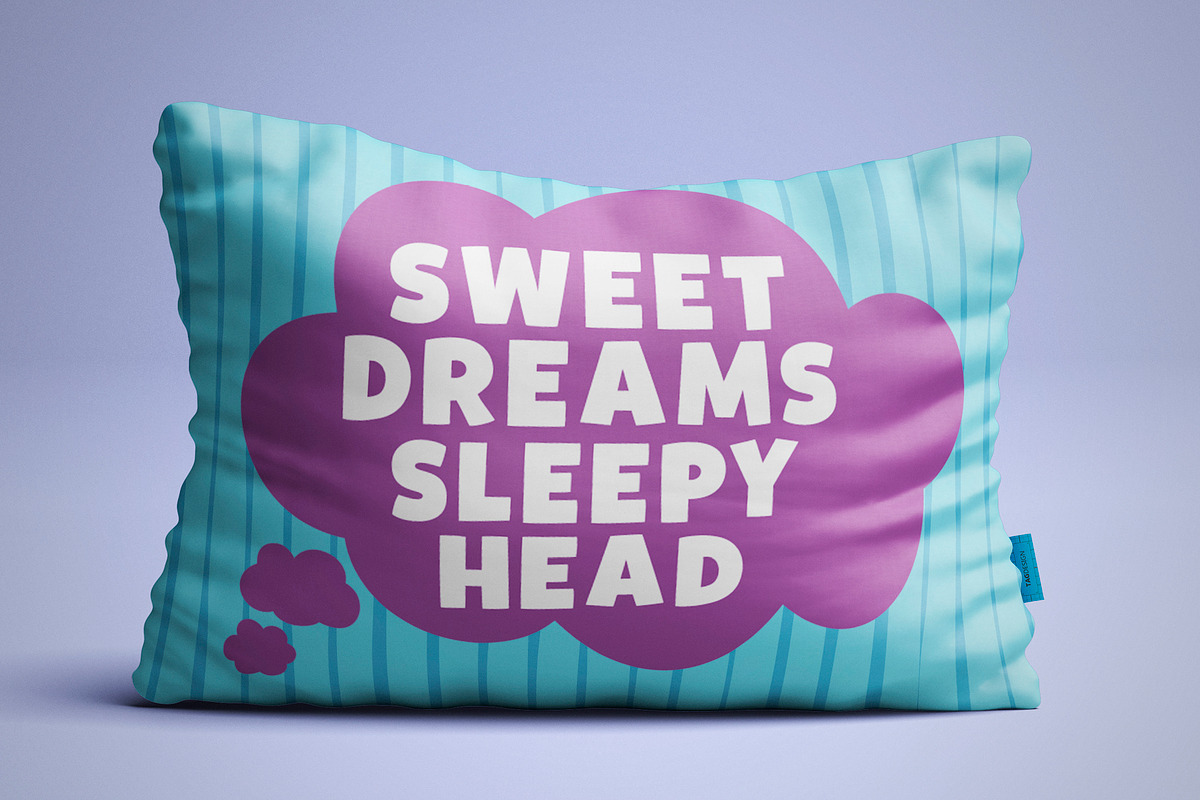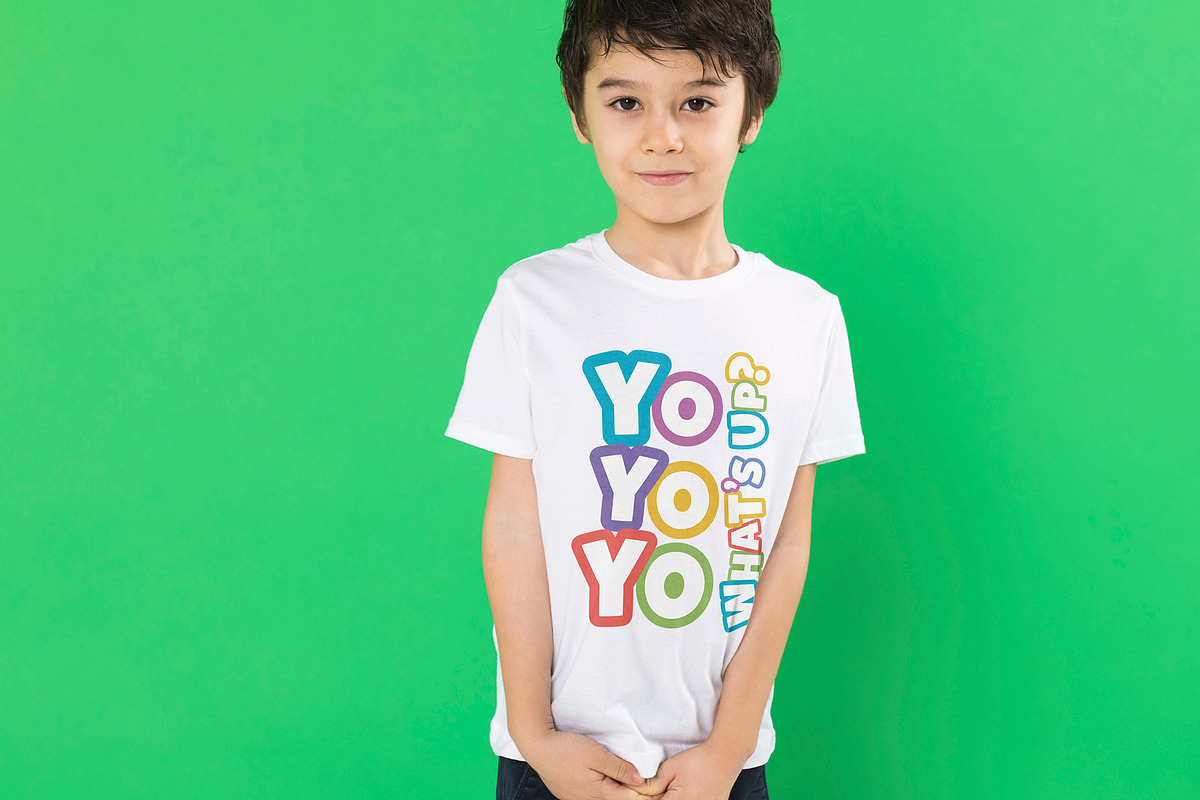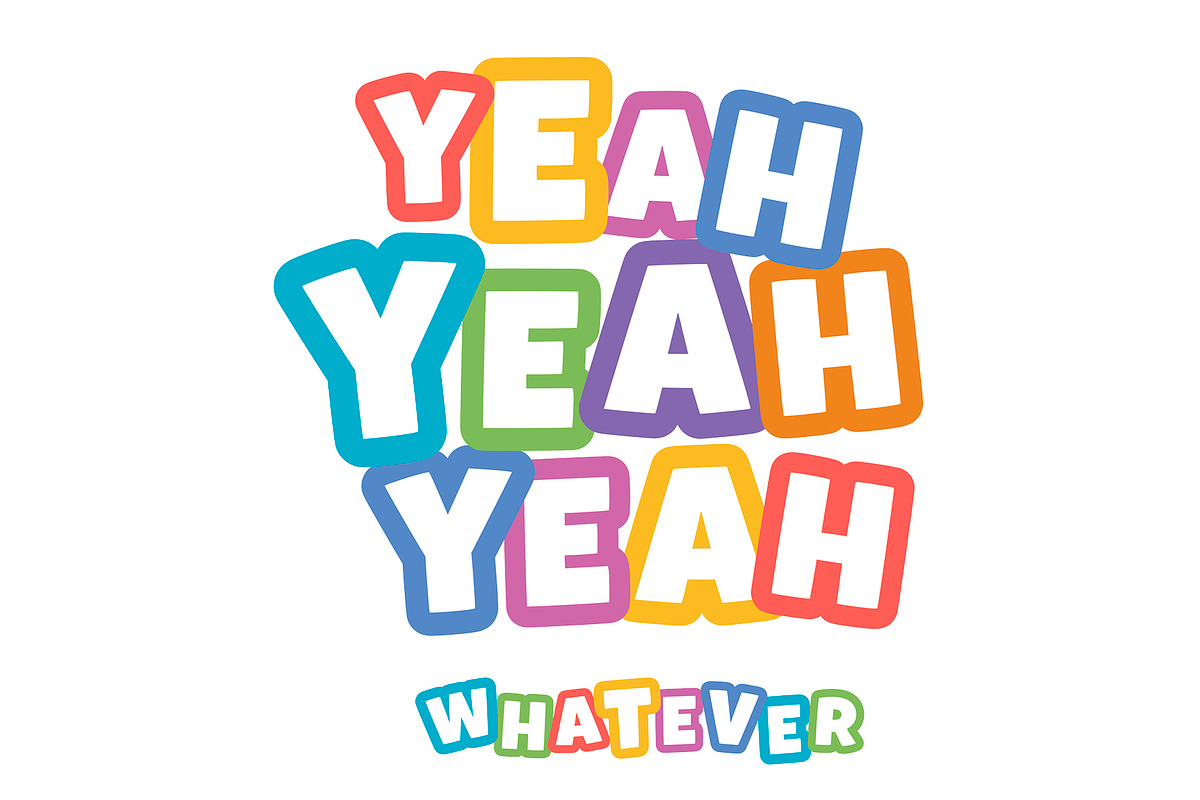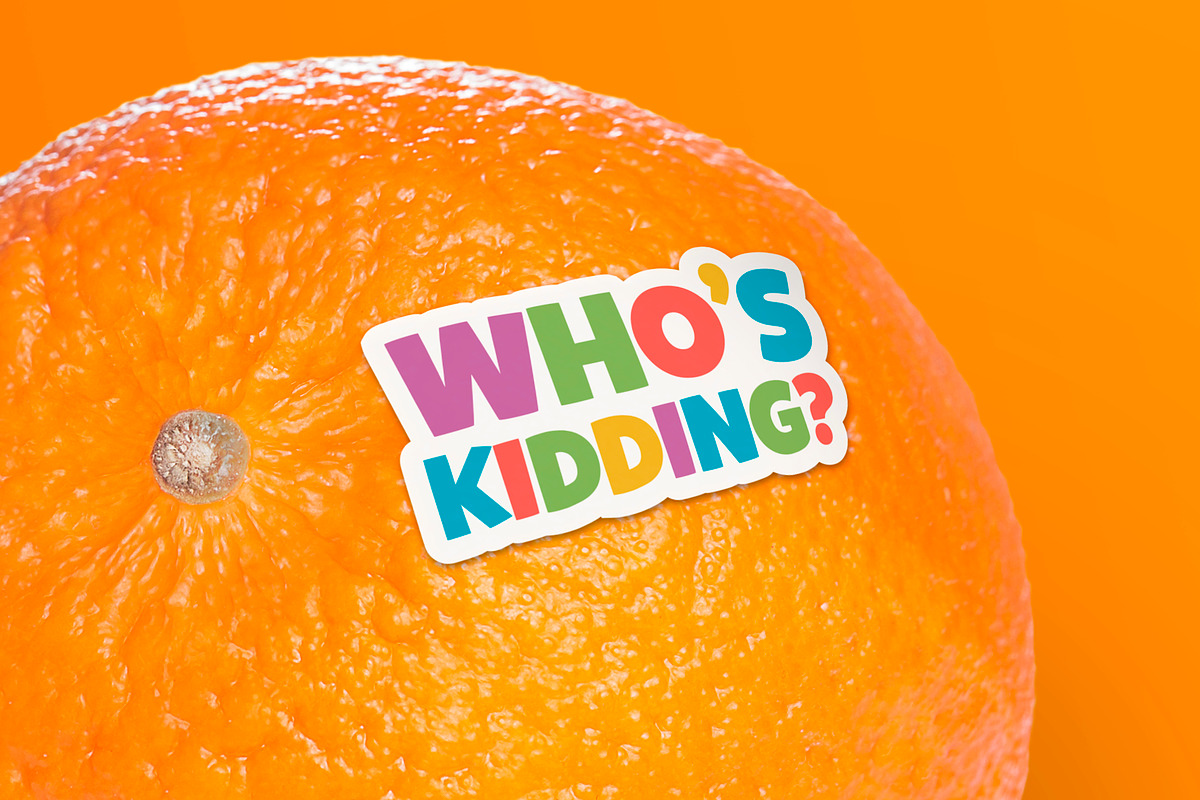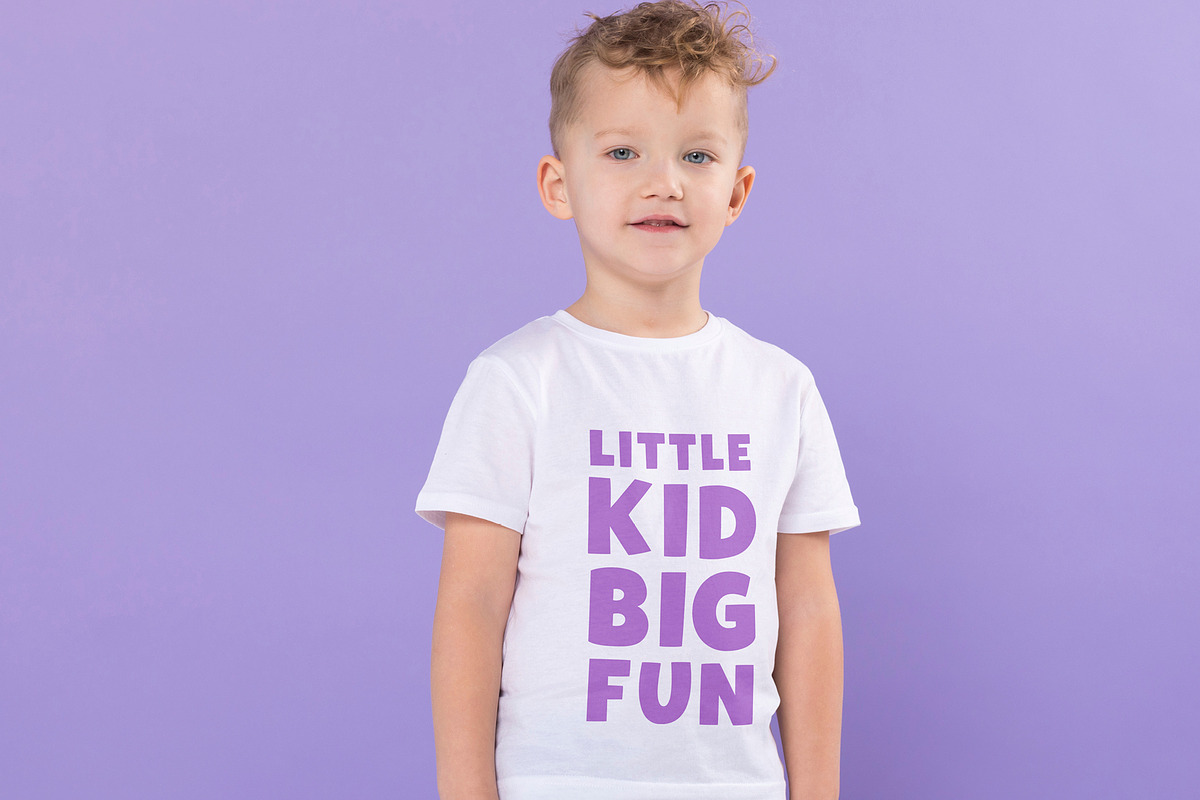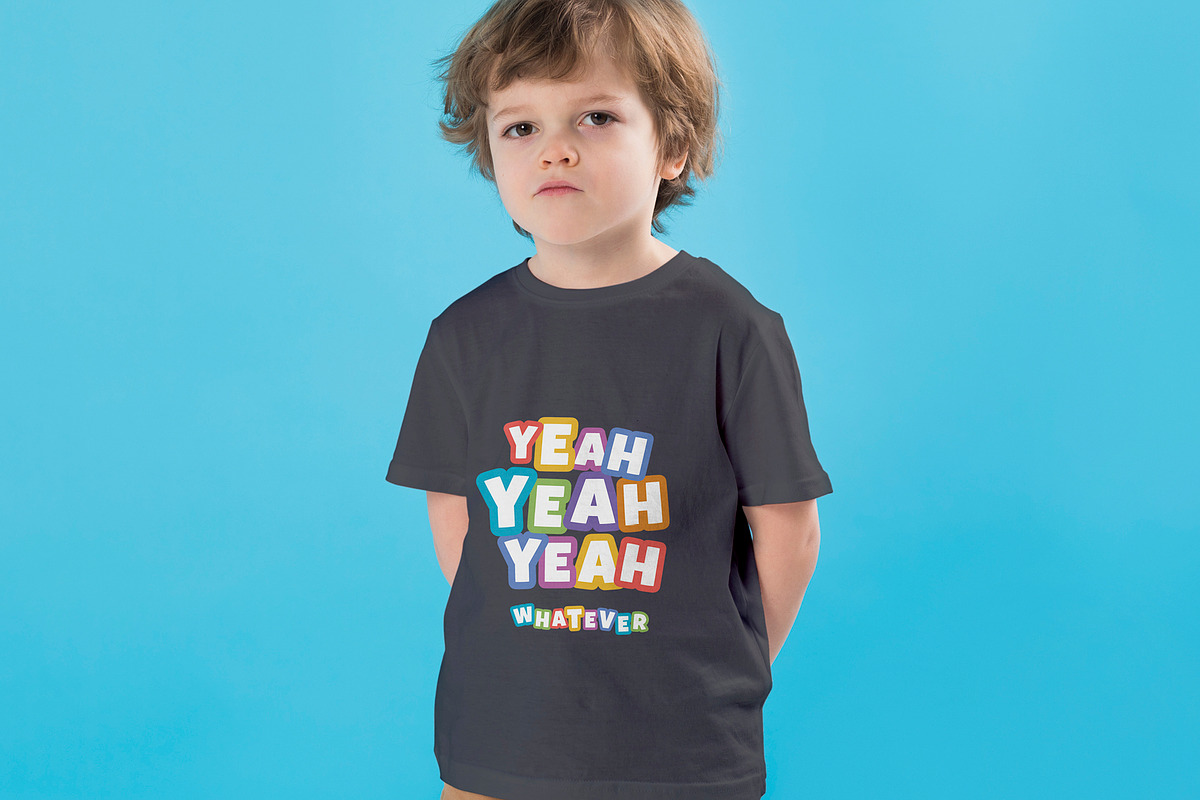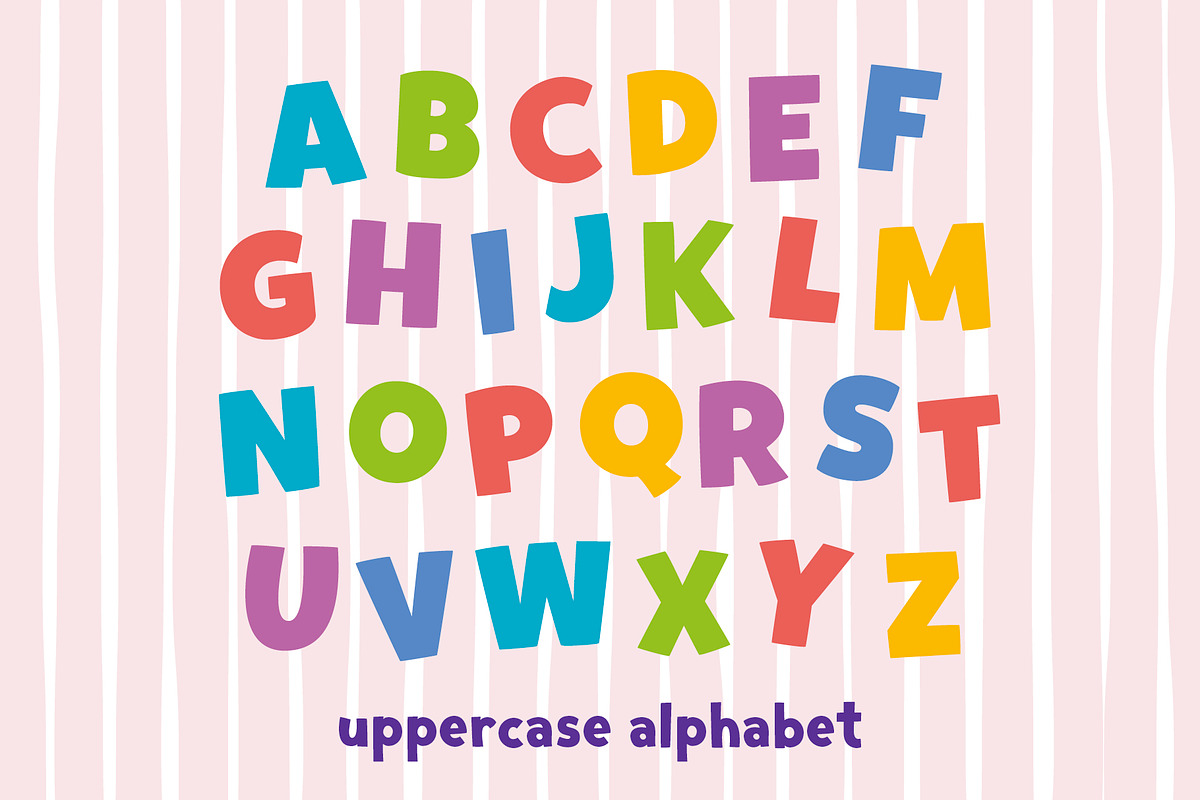
PEEJAY | Cartoon & Comic Book Font
PEEJAY. A Cartoon & Comic Book Style Fun Display Font to inject some life into your projects.
Peejay is a playful and quirky typeface. Bold and fun. It's perfect for little kids design items and a great boys font! Fantastic for kindergarten designs or perhaps for an older audience where some much needed fun is required. A cartoon font. A comic book font. A bold font. A playful font. A boy font. A fun font.
A bold and quirky font for many uses from t-shirts to mugs and looks great in headlines and quotes. Looks great when used in ALL CAPITALS!!!! And with a nice thick outline!